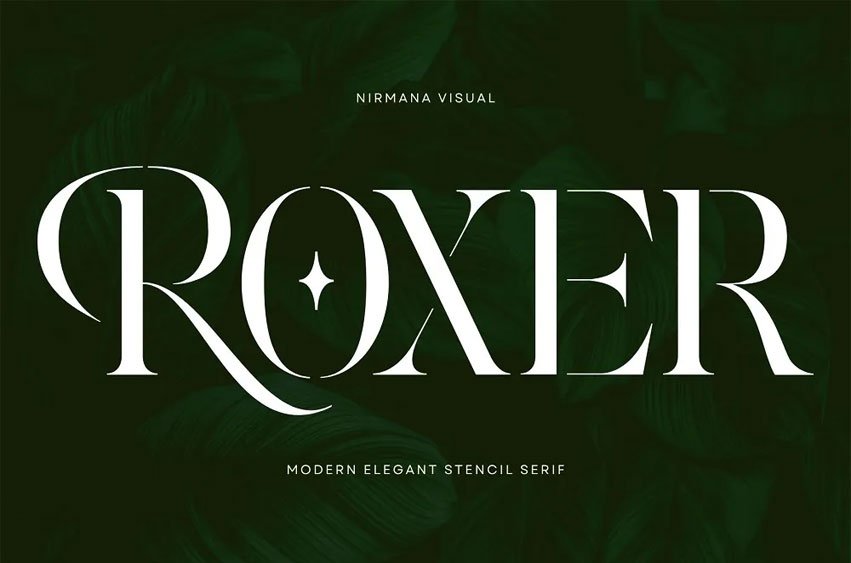
Roxer Font is a display font with a serif concept that has a elegant stencil feel.
This typeface is most suitable for an elegant & luxury logo, classy editorial design, women’s magazine, fashion brand, cosmetic brand, fashion promotion, modern advertising design, invitation card, art quote, home decoration, book/cover titles, special events, and much more.